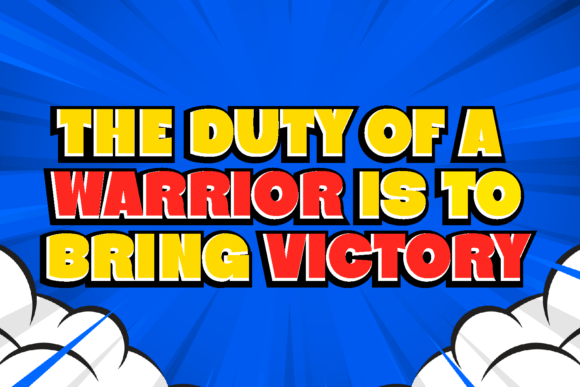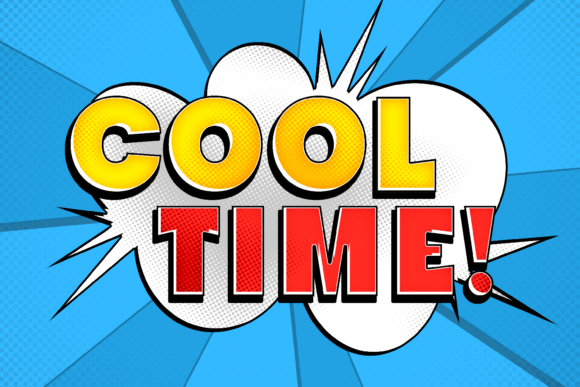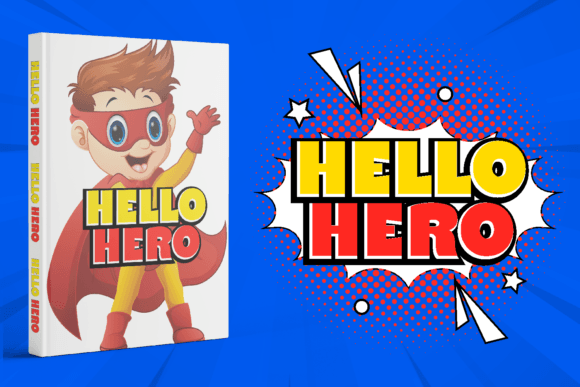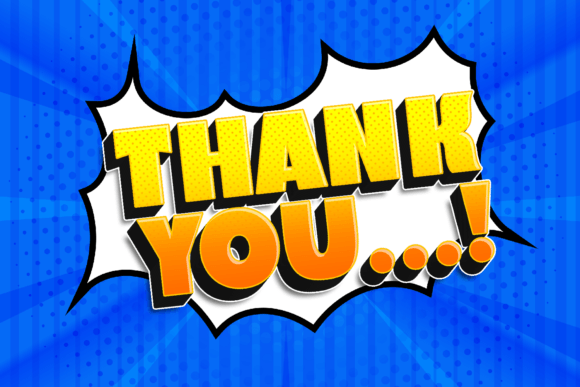
Introduction to Santa Super Font Font
Fonts play a crucial role in design, and the Santa Super Font font is a typeface that brings both character and versatility to any project. Whether you’re working on a branding project, a website, or a print design, the Santa Super Font font offers a unique style that can elevate your work.
Santa Super is a bold comic display font.
The fontβs exaggerated, dynamic letterforms convey a sense of motion and excitement Itβs ideal for action-packed projects like comic book titles, video game graphics, or posters for high-energy events.
Key Features of Santa Super Font Font
Why Choose Santa Super Font Font?
The Santa Super Font font is more than just a typeface β it’s a design tool that helps you communicate your message with style and clarity. Its unique character set and versatile design make it suitable for a wide range of applications, from elegant invitations to bold headlines.
With its carefully crafted letterforms and balanced proportions, the Santa Super Font font ensures readability and visual appeal across all mediums.
What makes Santa Super Font font special?
The Santa Super Font font stands out with its unique design, exceptional readability, and versatility across various design applications.